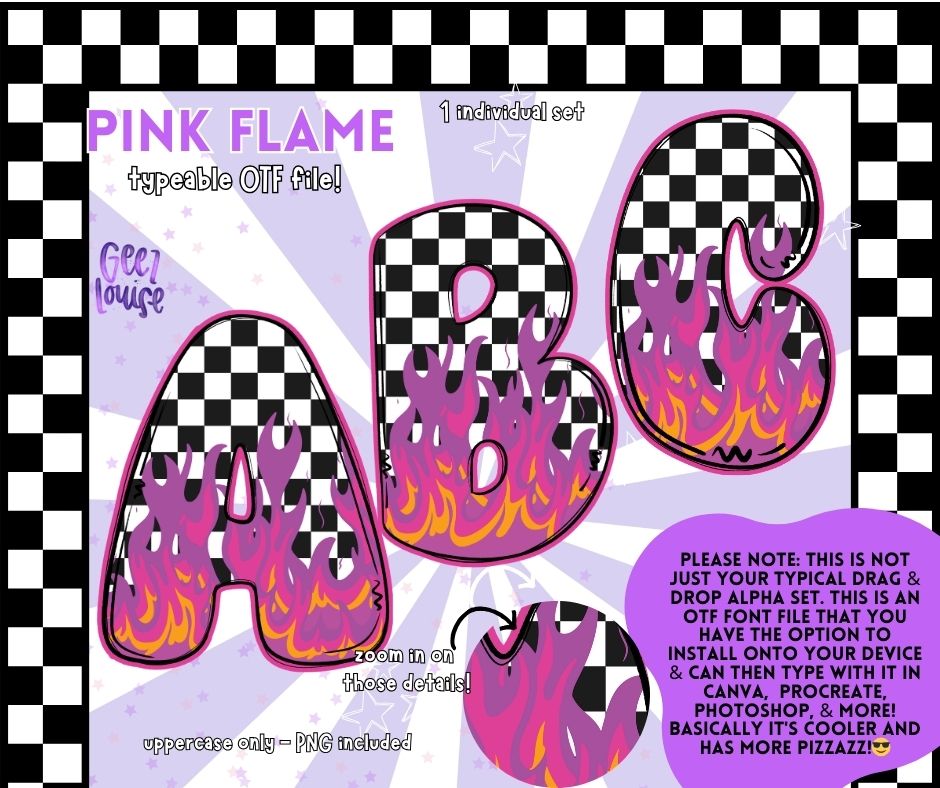
Pink Flame Bubble - TYPEABLE OTF Font - Alpha Set - Digital Download- PNG
Pink Flames bubble OTF Alpha – Typeable Font & PNG Files 🇺🇸
Unleash your creativity with this Skulls bubble OTF Alpha Set! This isn’t just another drag-and-drop alpha—this is a fully typeable OTF font that you can install on your device and use in Canva, Procreate, Photoshop, and more! Plus, high-quality PNG files are included for extra versatility.
✔ Pink Flames on Checkerboard print – A hot and trendy look
✔ High-quality details – Crisp, clear, and eye-catching